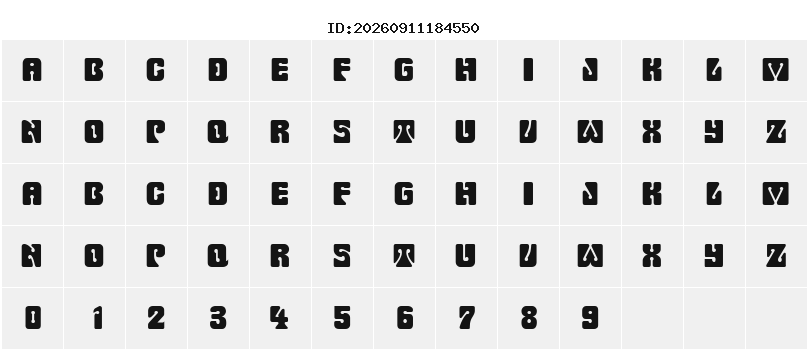
About Woodchuck SF.ttf
Woodchuck SF.ttf is a modern, elegant sans-serif font designed for ultimate readability and visual harmony. Perfect for branding, headlines, web design, and print materials.